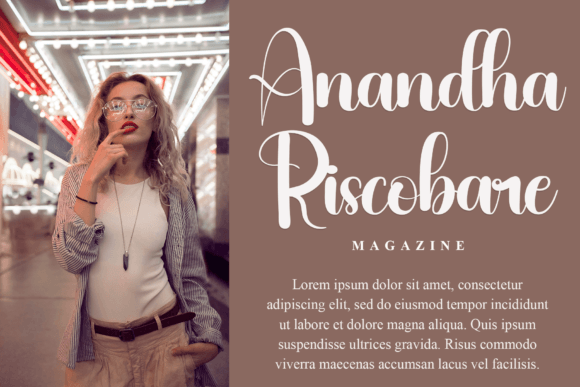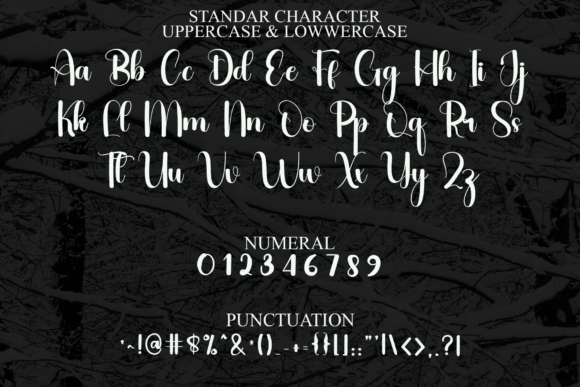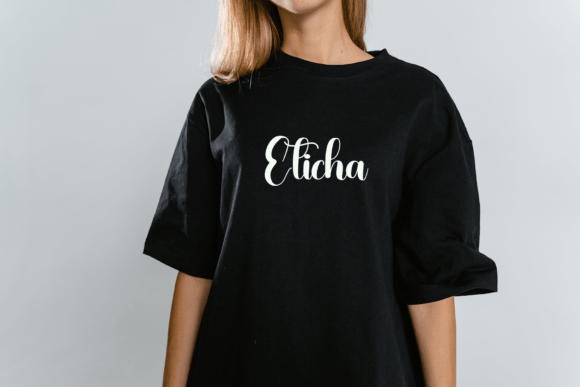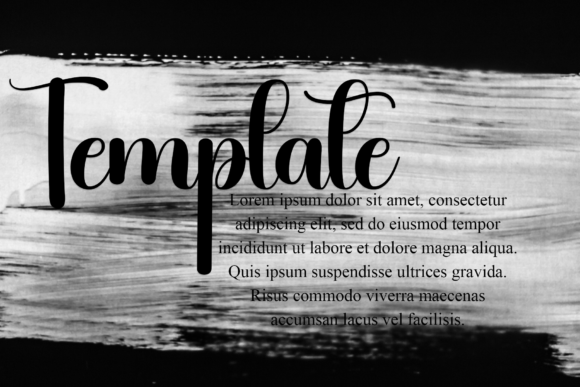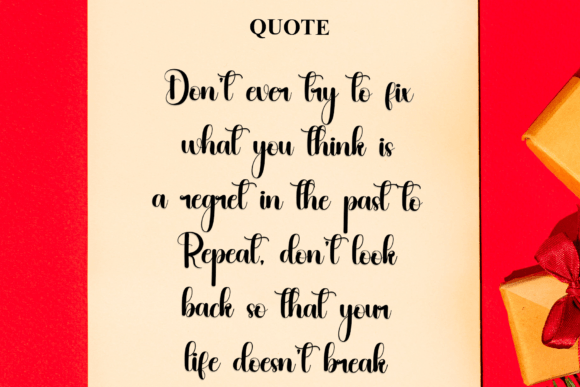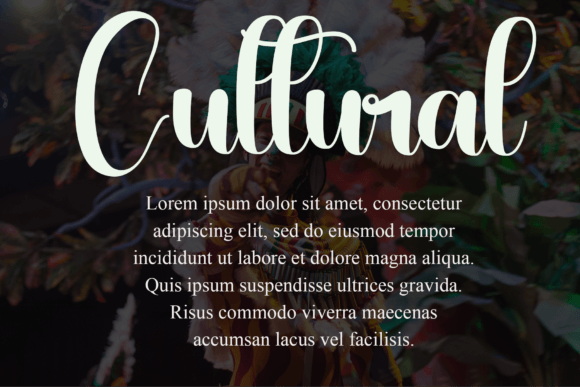
Step Right Up: Discover the Magic of Carnival Font
Have you ever stumbled upon a font that instantly transports you to a sunny beachside or a vibrant street festival? For designers, this feeling is a goldmine, and I’m about to share with you a secret that will make your next project shine: the Carnival Font.
This charming handwritten font is more than just a pretty face – it’s a key to unlocking a sense of freshness and casual elegance in your designs. With its fluid strokes and organic lines, Carnival Font is perfect for adding a touch of warmth and personality to branding, invitations, and social media graphics. Whether you’re a seasoned pro or just starting out, this versatile font is an invaluable addition to your toolkit.
Carnival Font Key Features
- Font Family: Carnival is a display font family, ideal for use in titles, headings, and other prominent text.
- Size: The font family includes multiple weights and styles, ranging from Thin to Black, offering a wide range of size options.
- Unique Characteristics: Carnival features a playful, carnival-inspired design with intricate details and ornaments, making it perfect for adding a touch of whimsy to designs.
Carnival Font Review
I recently had the chance to work with the Carnival Font, and I must say it’s a unique addition to any design project. ✨ One of the things that stands out about this font is its playful, energetic vibe, making it perfect for anything related to fun and excitement.
Here are some of the things that work well with the Carnival Font:
- ✨ High contrast between thick and thin lines, creating a visually appealing effect
- ✨ The font’s irregularity adds a touch of whimsy and personality
- ✨ Suitable for headings, titles, and short paragraphs
- ⚠️ May be difficult to read in large blocks of text due to its irregularity
- ⚠️ Can be overwhelming if used extensively throughout a design
- ⚠️ Not ideal for formal or professional settings
Overall, the Carnival Font is a fun and eye-catching choice, but it’s best used in moderation. If you’re looking to add some excitement to your design, this font is definitely worth considering. Just be mindful of its limitations and use it in the right context.
Tips for Getting the Most Out of the Carnival Font
To get the most out of the Carnival Font, experiment with different font sizes, colors, and styles to create a unique look. Use the font to add a touch of whimsy and playfulness to your designs. Consider combining the Carnival Font with other fonts to create a visually appealing contrast.
The Carnival Font is perfect for use in:
– Children’s party invitations and decorations
– Carnival and fair-themed graphics and designs
– Playful and whimsical branding and marketing materials
– Summer-themed graphics and designs
Alternatives to Carnival Font
Great Vibes is a modern, handwritten font perfect for creating a playful and energetic atmosphere. It is ideal for use in logos, advertisements, and social media graphics where a touch of whimsy is desired. Compared to Carnival Font, Great Vibes has a more refined and elegant feel, making it suitable for a wider range of design projects.
Pacifico is a beautiful, cursive font that exudes a sense of relaxation and tranquility. It is perfect for use in branding, packaging, and editorial design where a touch of sophistication is desired. Compared to Carnival Font, Pacifico has a more elegant and refined feel, making it suitable for use in high-end design projects.